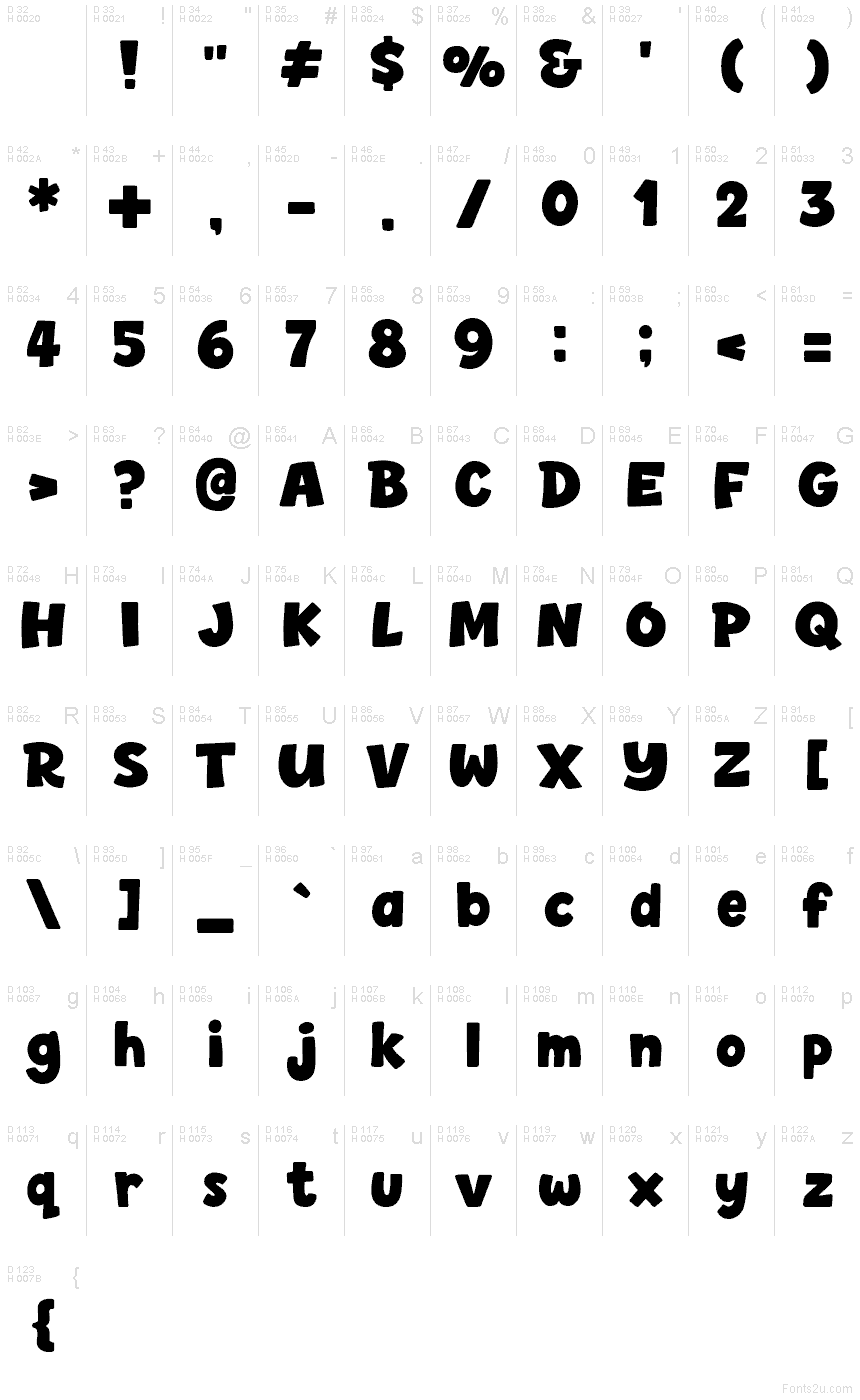
Playfull Rocket
Playfull Rocket font by BlackFridayFont FMF is a free bold cartoon font that solves the “cute but readable” problem. Its chunky, pillow-soft forms and slightly wobbly outlines hit that sweet spot: big, friendly impact without turning to mush. The rounded terminals feel squishy and tactile, while the steady rhythm keeps words easy to scan, even at smaller headline sizes.
Using Playfull Rocket, you’ll get cheerful punch for kids’ apps, toy logos, birthday invites, classroom posters, candy packaging, and YouTube thumbnails. This free font thrives in oversized headlines; give it a touch of extra tracking for airy charm. Pair with a clean geometric sans for subheads to let the bubbly letters shine without visual clutter.